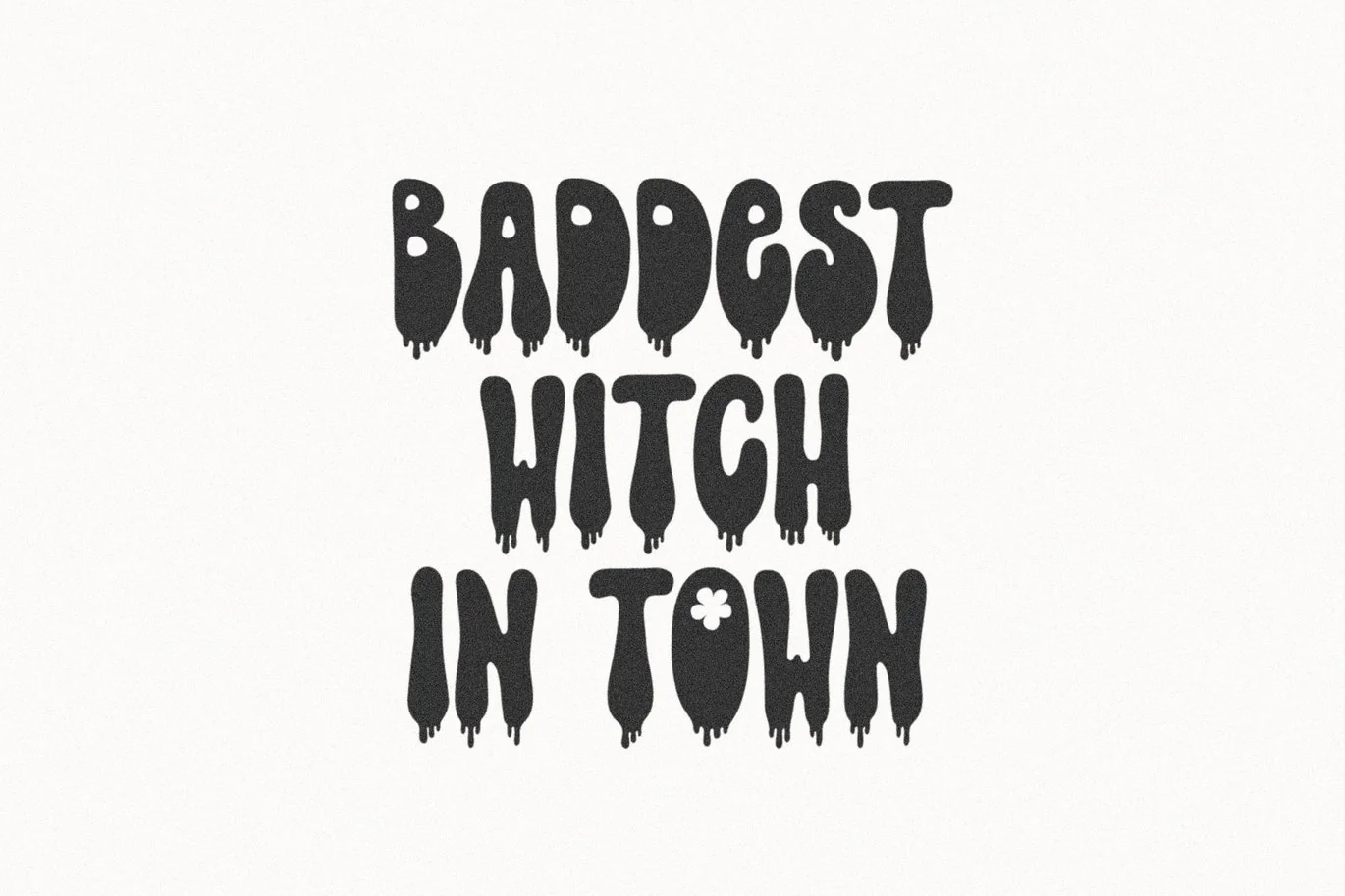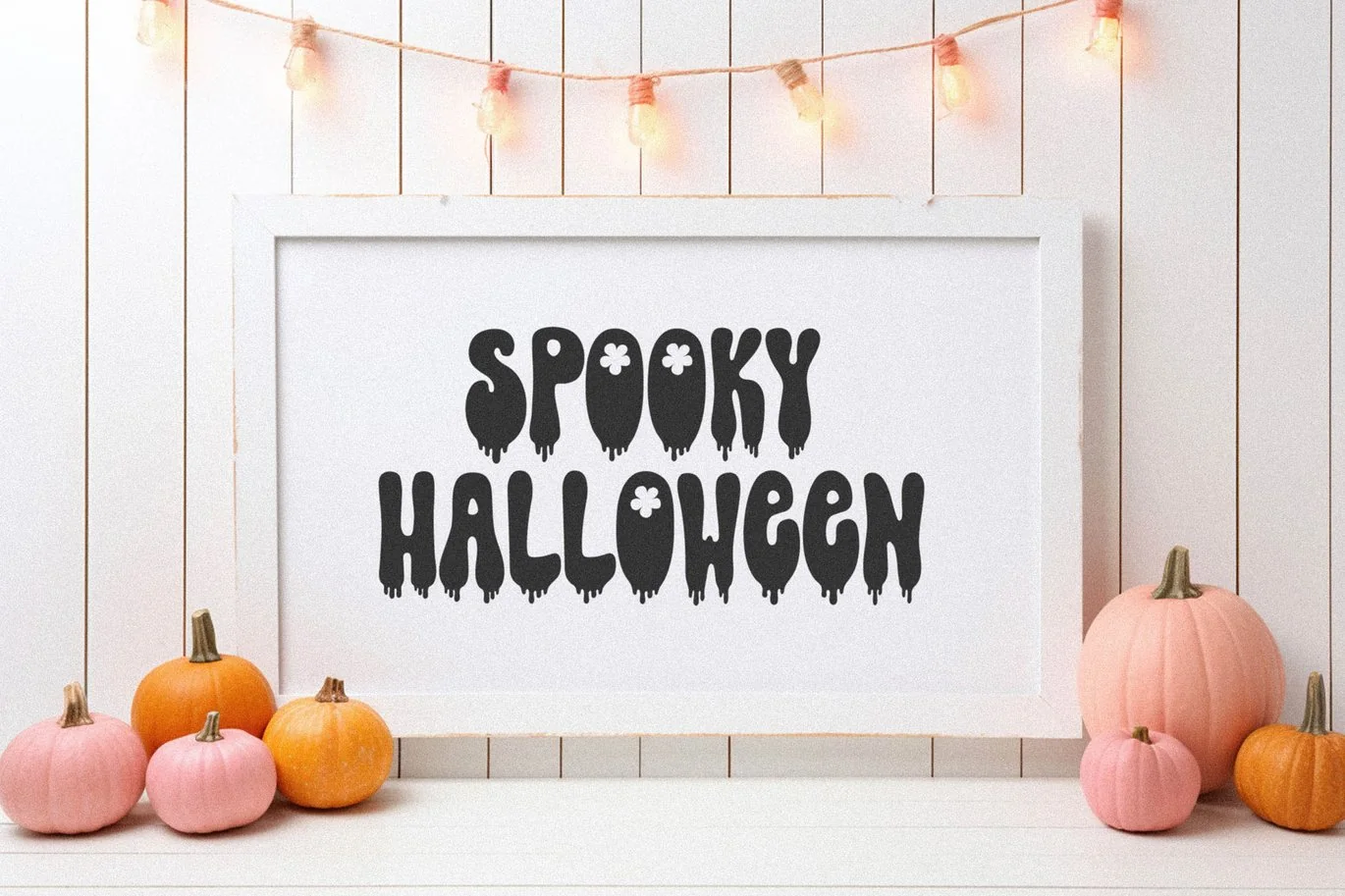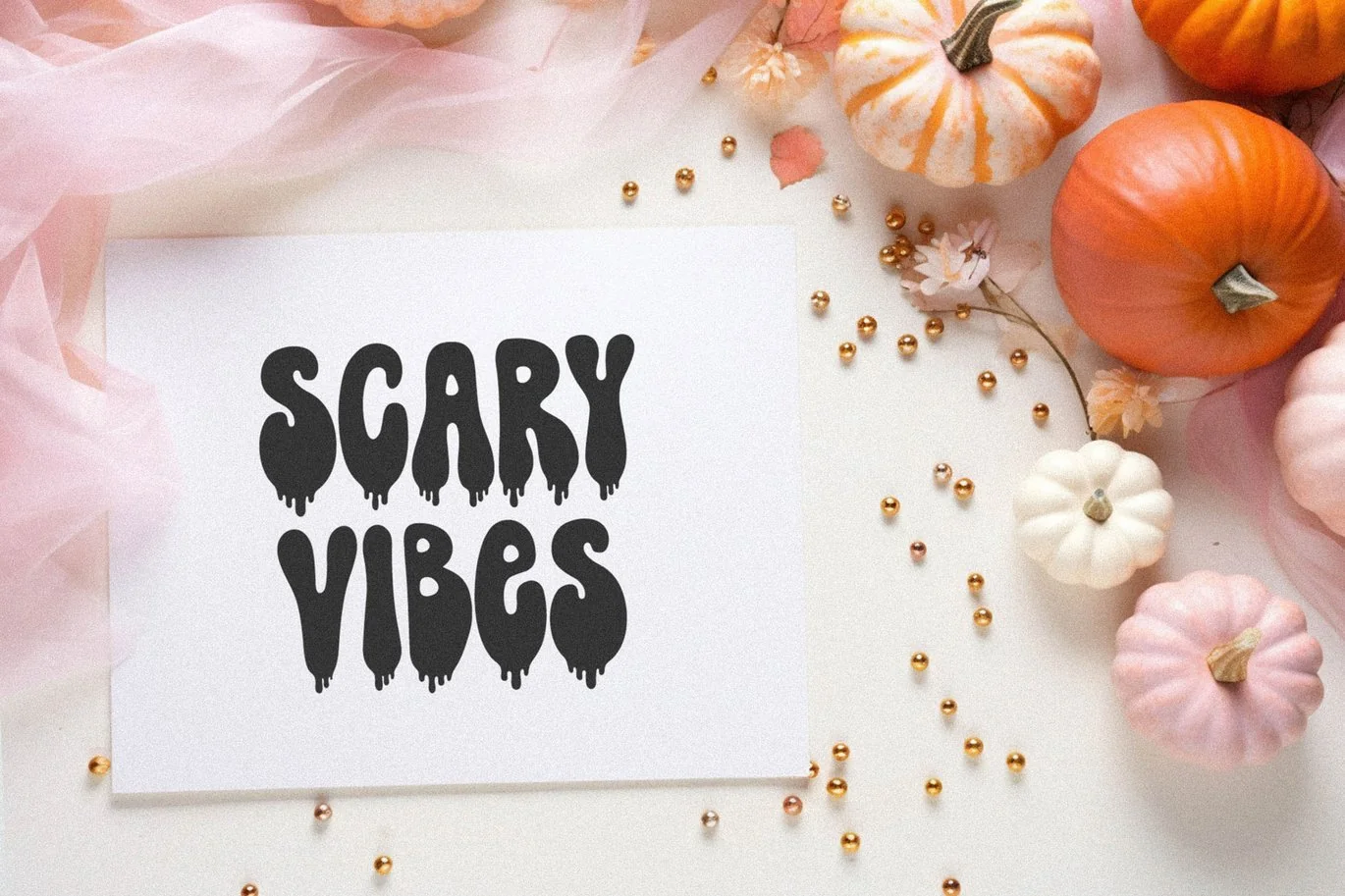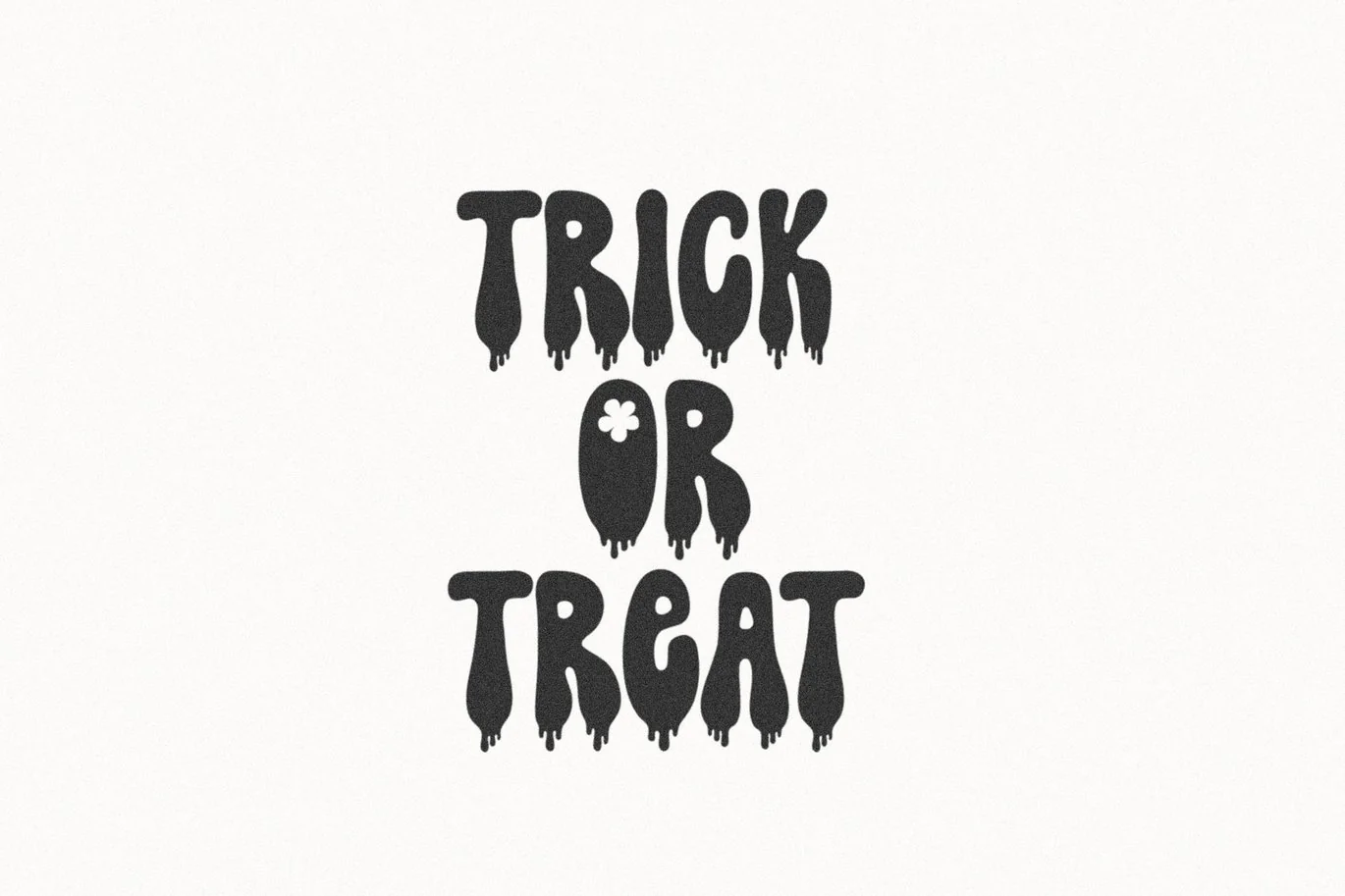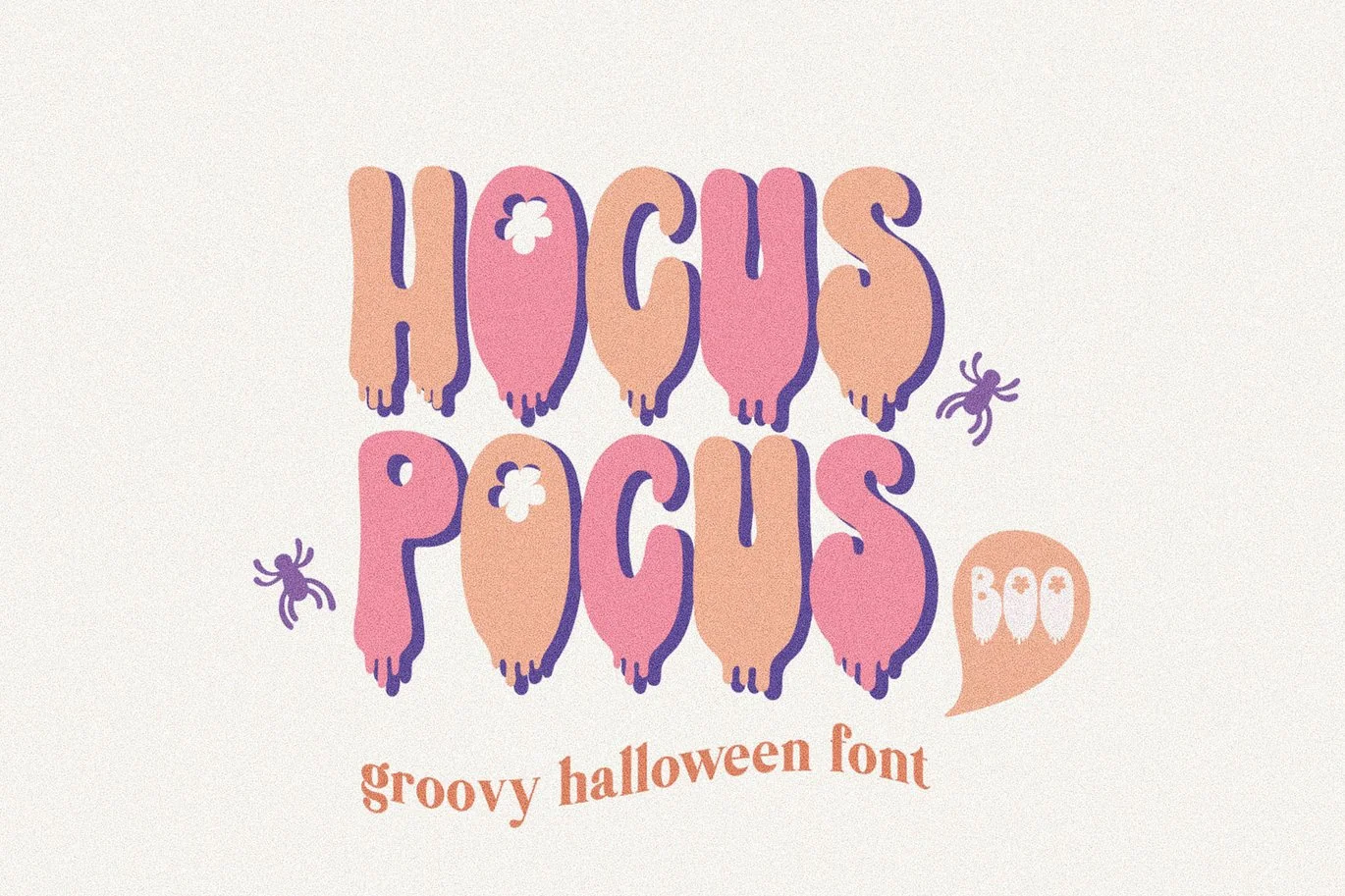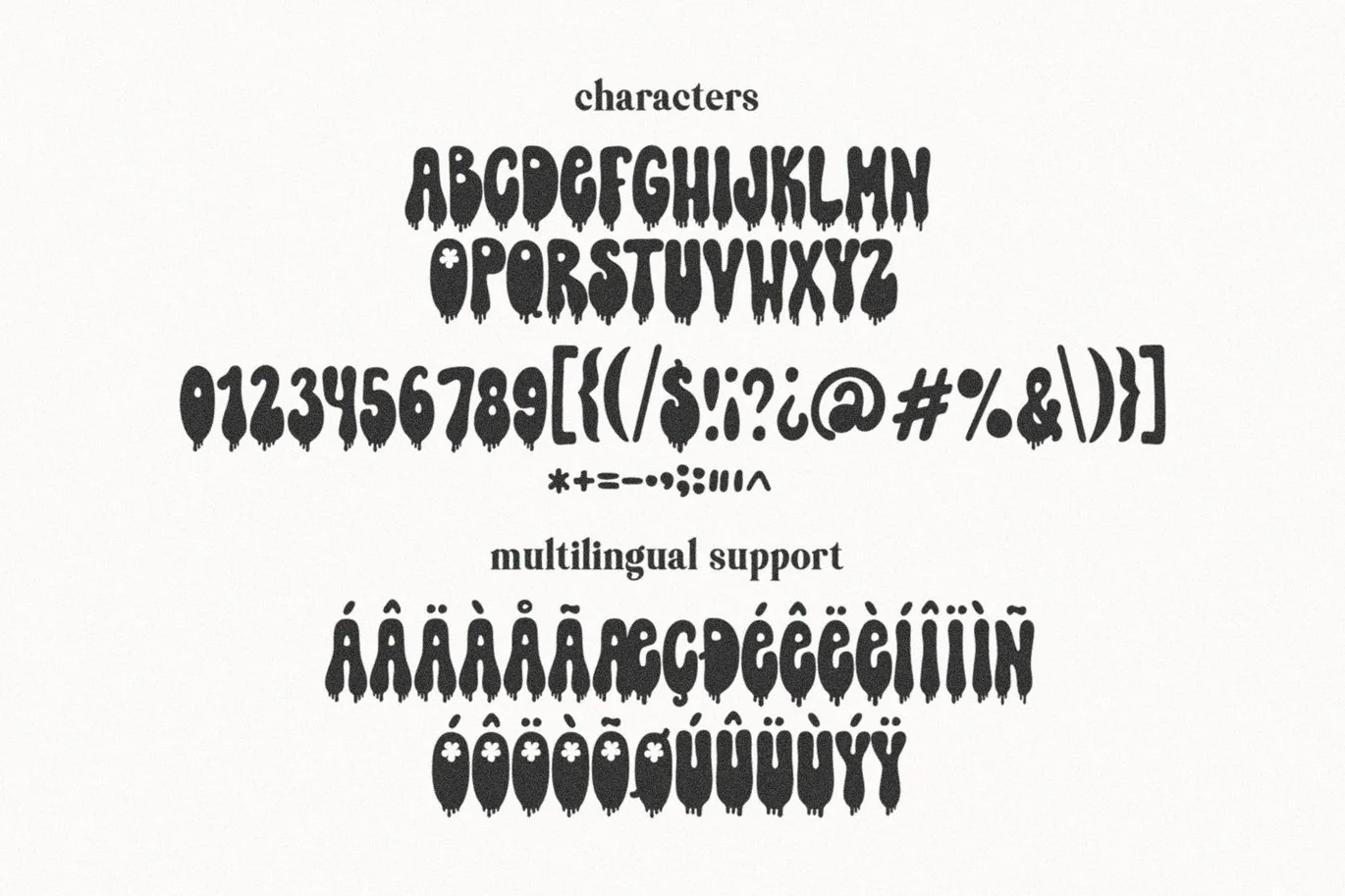
Hocus Pocus Boo Halloween Font
Hocus Pocus Boo a spooky halloween font. Perfect to create stickers, quotes, invitations, prints etc
- Capital letters only